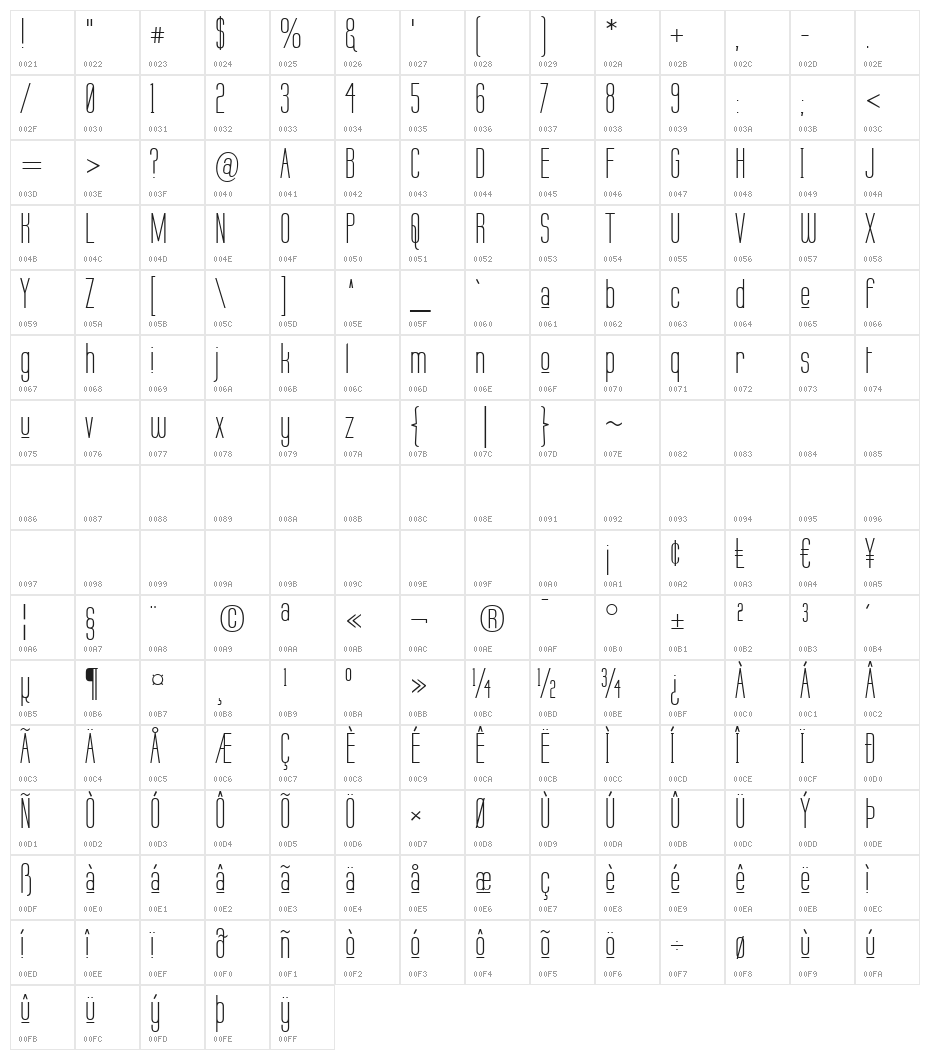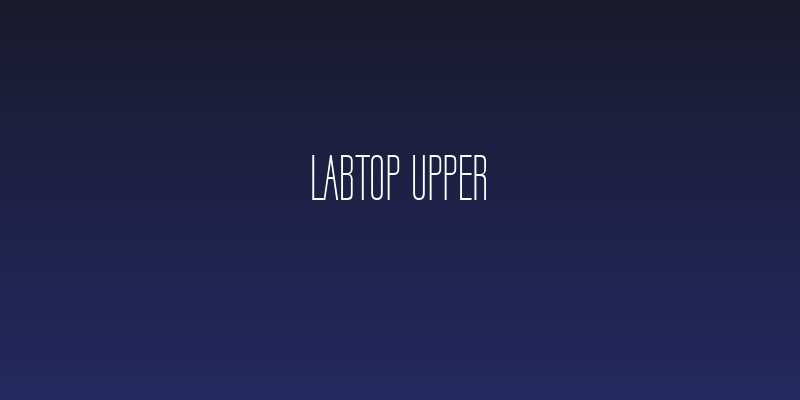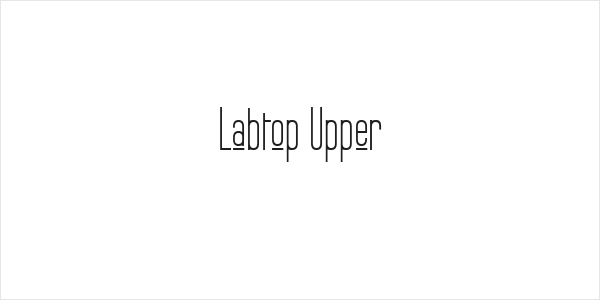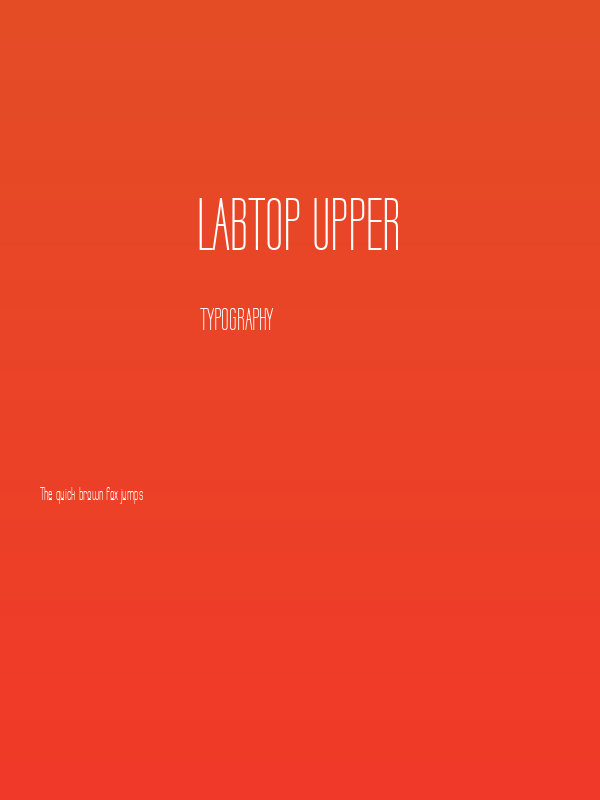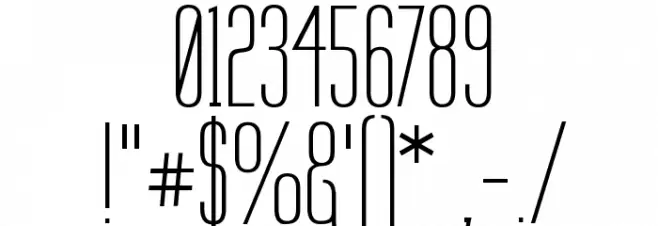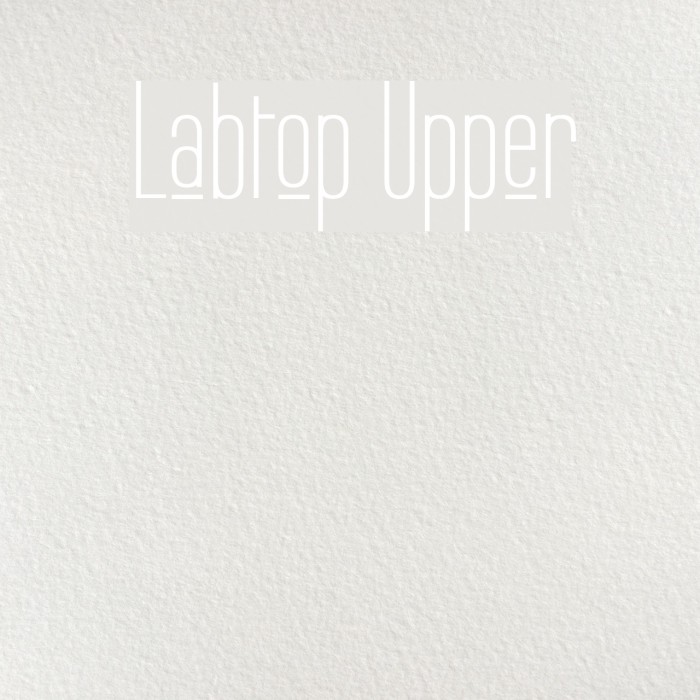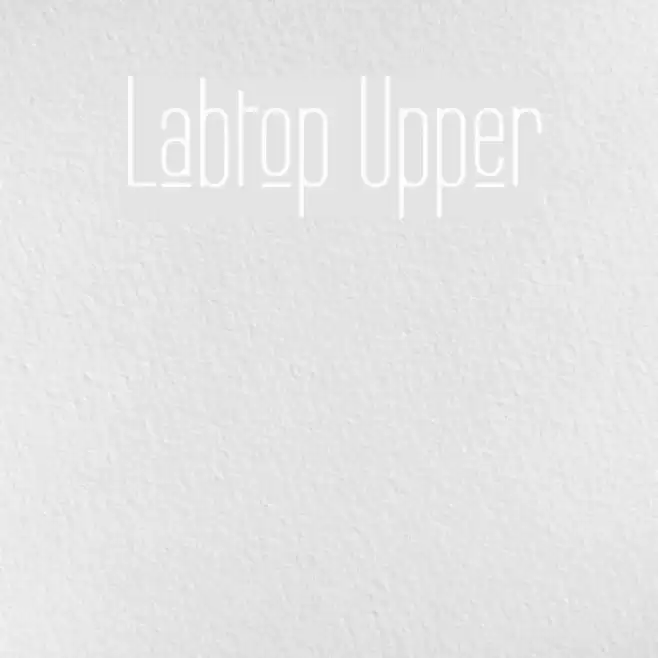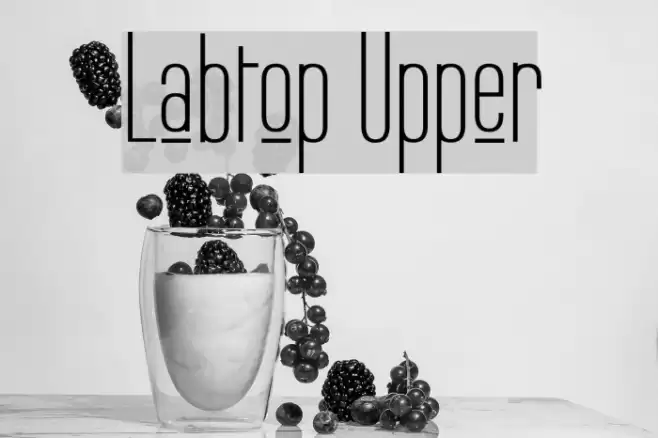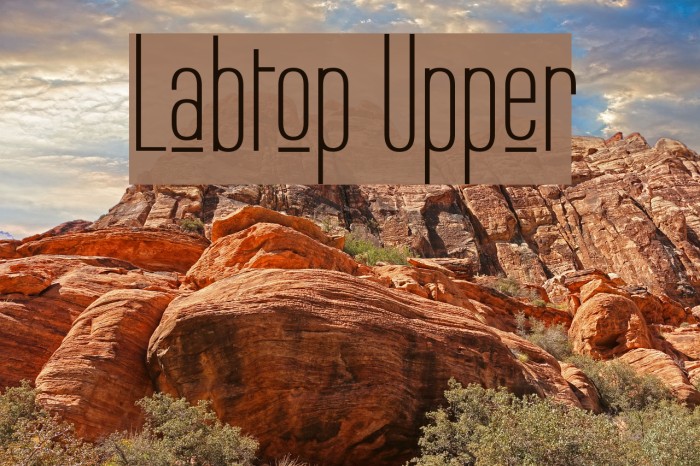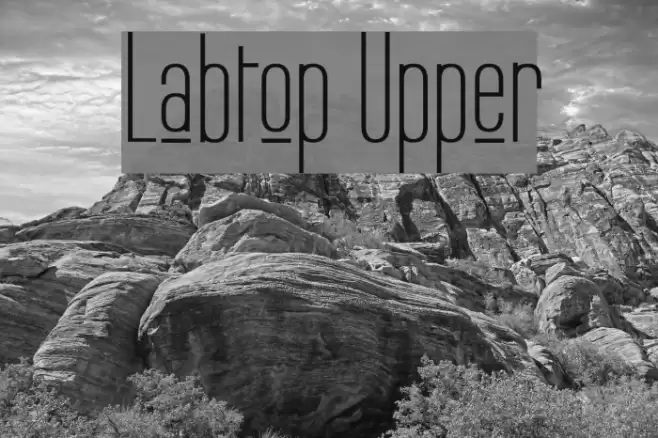
Labtop Upper Font
Labtop Upper Description
This font features a tall, narrow design with a modern and sleek appearance. The characters are elongated, giving a sense of height and elegance. The vertical strokes are consistent in thickness, contributing to a clean and uniform look. The uppercase letters are particularly striking with their elongated forms, while the lowercase letters maintain a similar style, ensuring readability. The numerals are distinct and match the overall aesthetic, making them suitable for various applications. Special characters are included, maintaining the font's cohesive design. This font is ideal for projects that require a contemporary and sophisticated touch.
| Proposed Projects | Ideal for fashion magazines, modern branding, posters, and editorial design. |